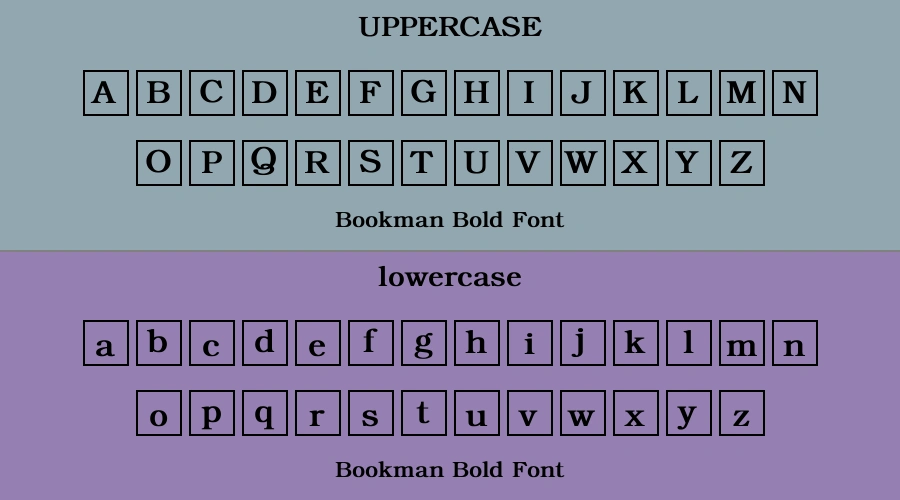
About Bookman Bold Font
Bookman Bold Font stands out for its distinctive combination of rhythmic patterns and professionalism. Ideal for web design, it provides the impact and technical excellence that professional projects demand. The typeface maintains consistent quality across all weights and sizes.
Key features include refined architectural precision and practical discretionary ligatures, enhancing typographic expression. In footnotes applications, Bookman Bold Font demonstrates exceptional consistency. The loop structure and research value contribute to its distinctive character and professional appeal.